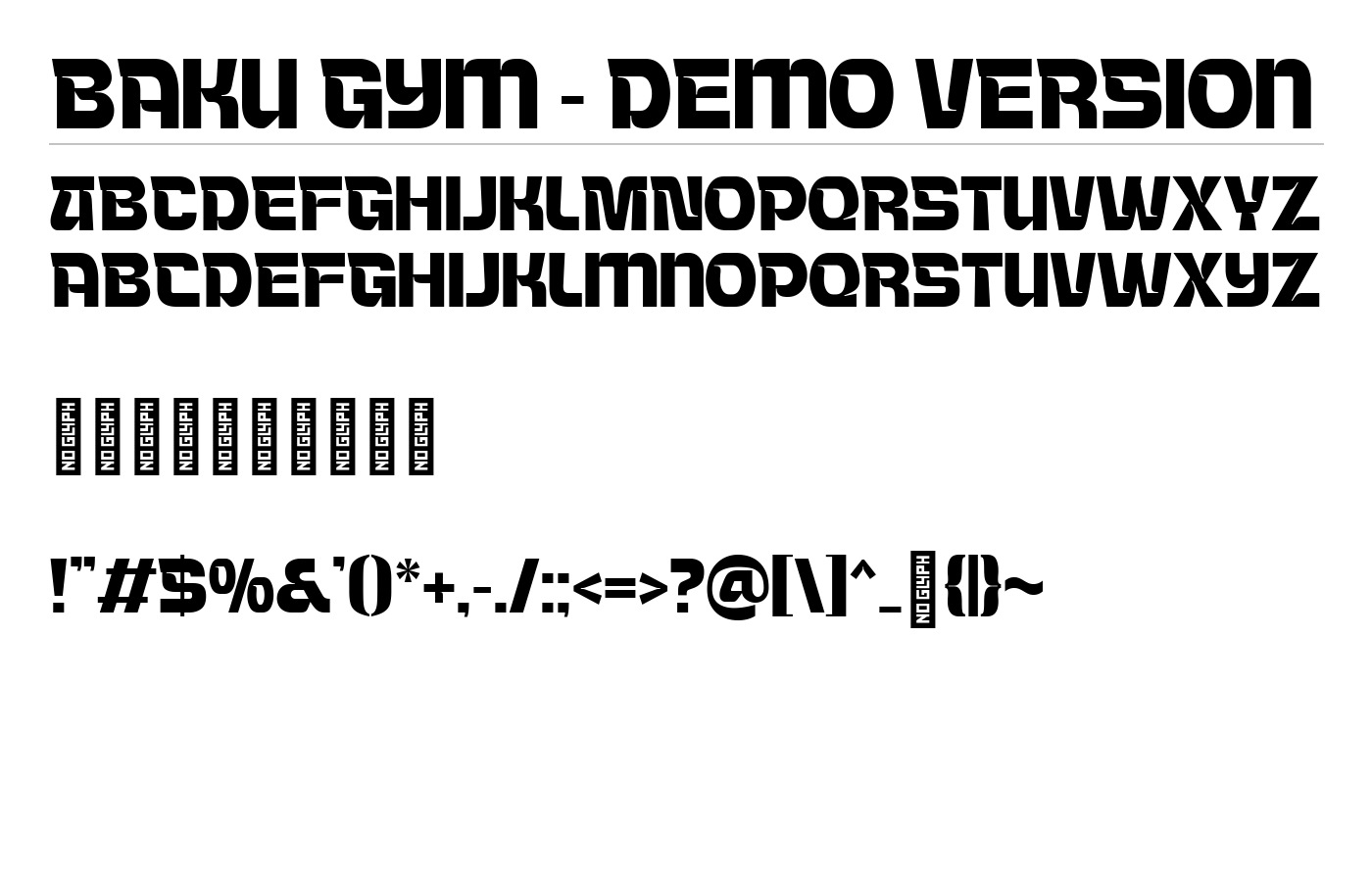
Baku Gym is a bold, condensed sans serif font with a strong, sporty character, featuring sharp angles and unique geometric cuts that give it a modern, dynamic feel. Its uppercase-only design and high-impact weight make it ideal for headlines, logos, and branding in fitness or urban-themed projects where energy and strength need to be communicated clearly.
Baku Gym - Demo Version Font
About Baku Gym - Demo Version Font